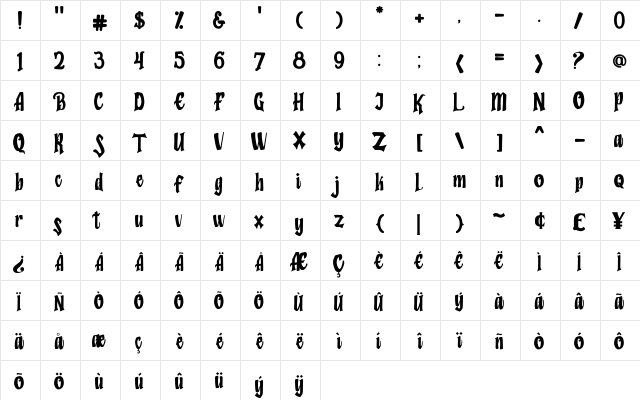
Humingson Regular
Design Context for Humingson Typeface
Humingson is a composed and adaptable typeface that performs quietly and consistently across a wide range of design contexts.